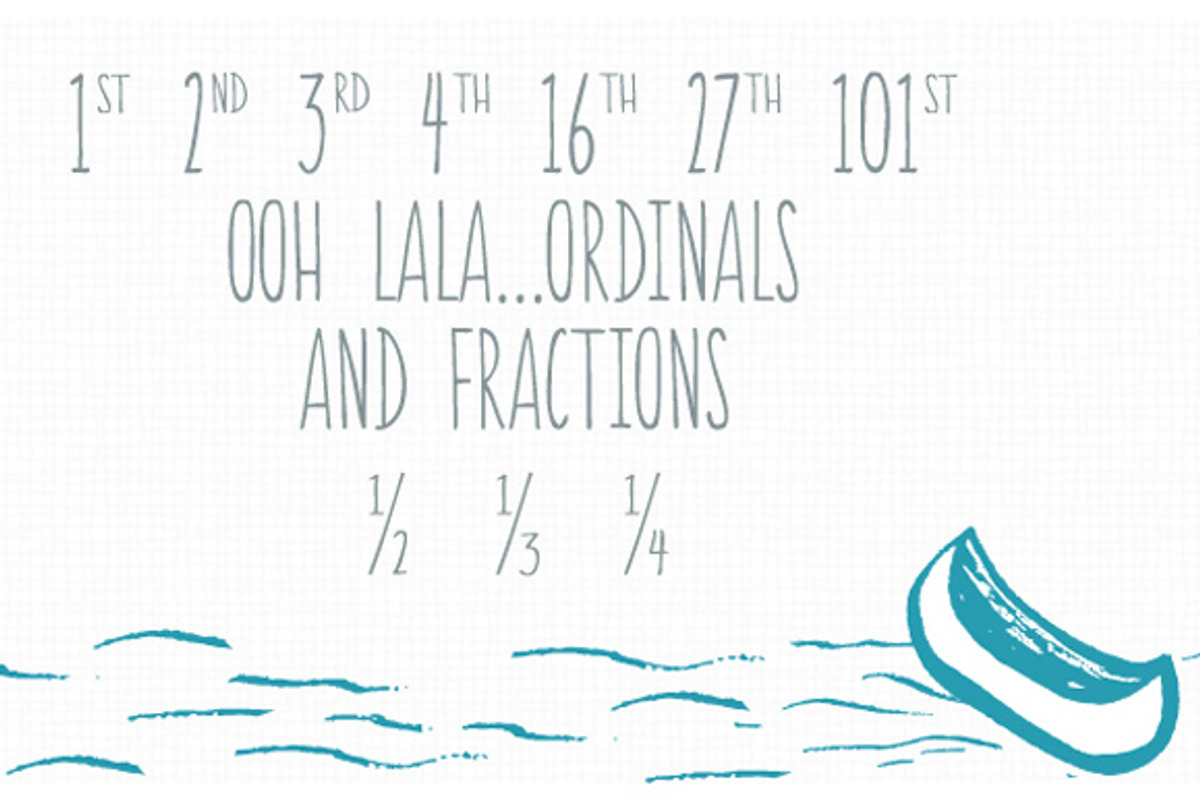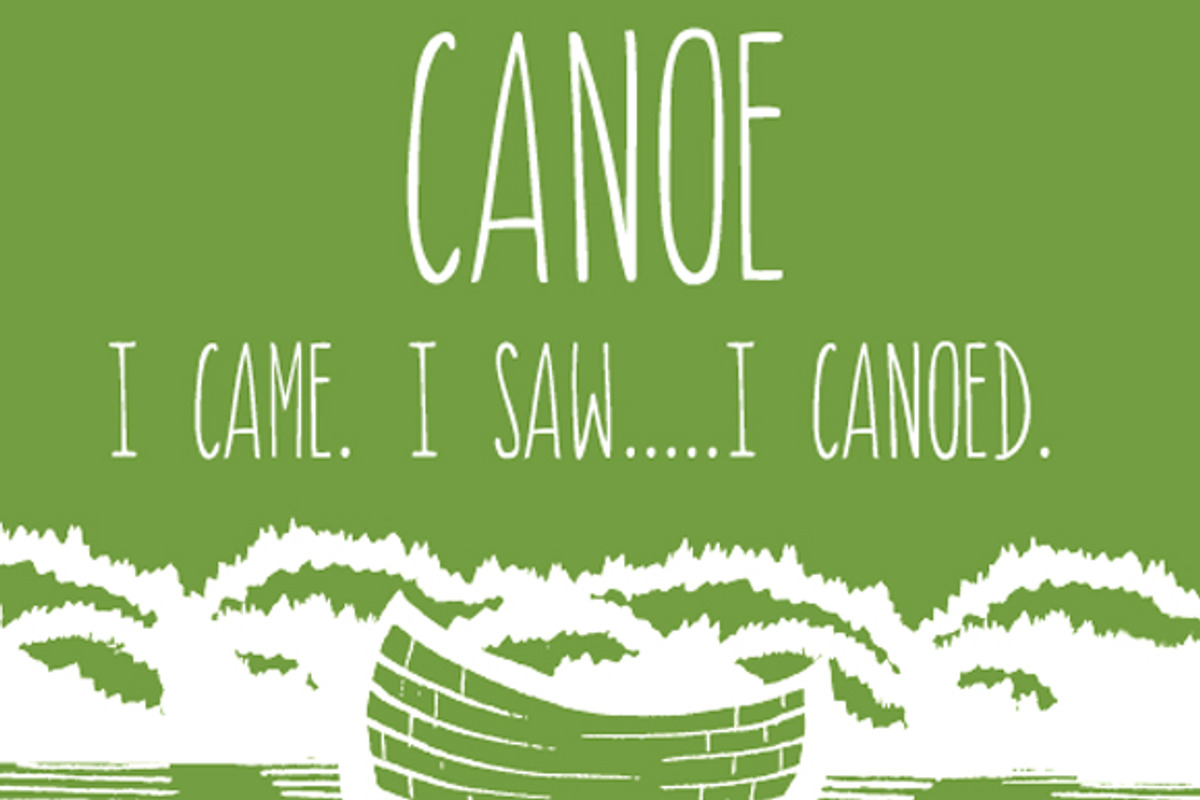
Canoe Font - An All Caps Font
This all-caps font has a delightfully hand-written feel. Complete with ordinals and fractions and web-ready. OTF, TTF, and webfont files are included.